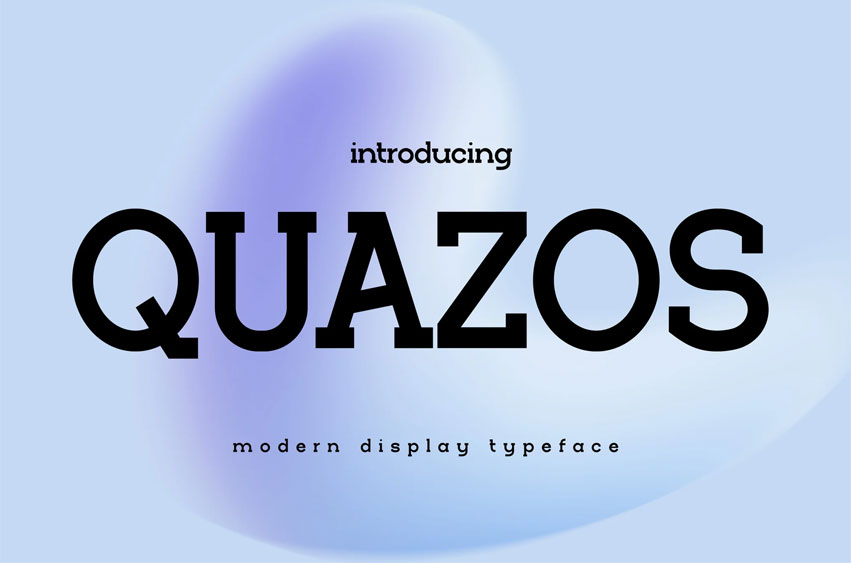
Quazos Font is a modern minimal display typeface designed for clean branding and contemporary communication, combining geometric construction, smooth curves, and low-contrast strokes that feel calm and intentional. Its vibe is modern, quiet, and confident—well suited for architecture studios, technology brands, editorial layouts, and refined digital interfaces. The letterforms emphasize clarity and proportion, making Quazos effective for headlines, posters, website sections, and minimalist brand systems.
Quazos is built for designers who value clarity over noise. From branding and editorial layouts to app UI headings, posters, and social media graphics, this typeface supports a clean visual message that feels thoughtful and professional. Its calm geometry helps content breathe, guiding attention without distraction—ideal for brands focused on structure, space, and modern identity.
Key Features : Modern Minimal Character • Geometric shapes with soft curves • Low-contrast strokes for smooth readability
Designed for Clean Branding • Ideal for architecture, technology, and creative studios • Strong presence for headlines and key messaging
Balanced Letterform Structure • Consistent proportions for visual harmony • Clear spacing that works well at large sizes
Digital-First Versatility • Suitable for web, app UI, and print layouts • Performs well on light and gradient backgrounds